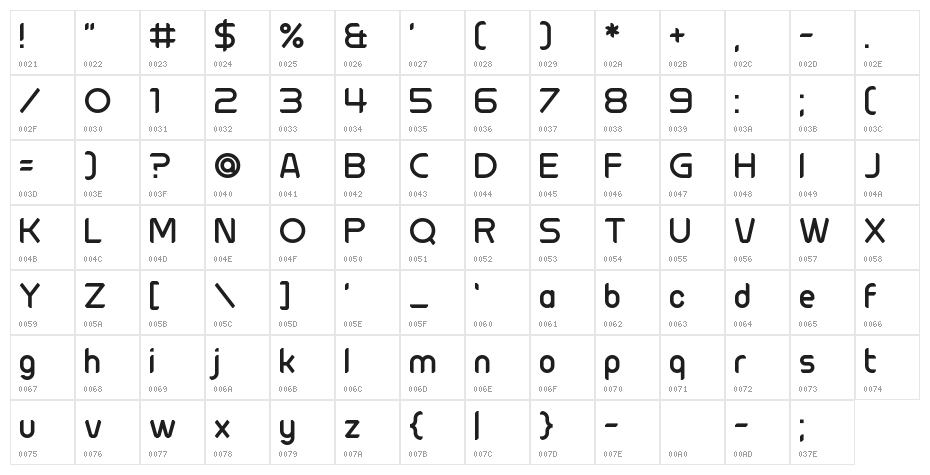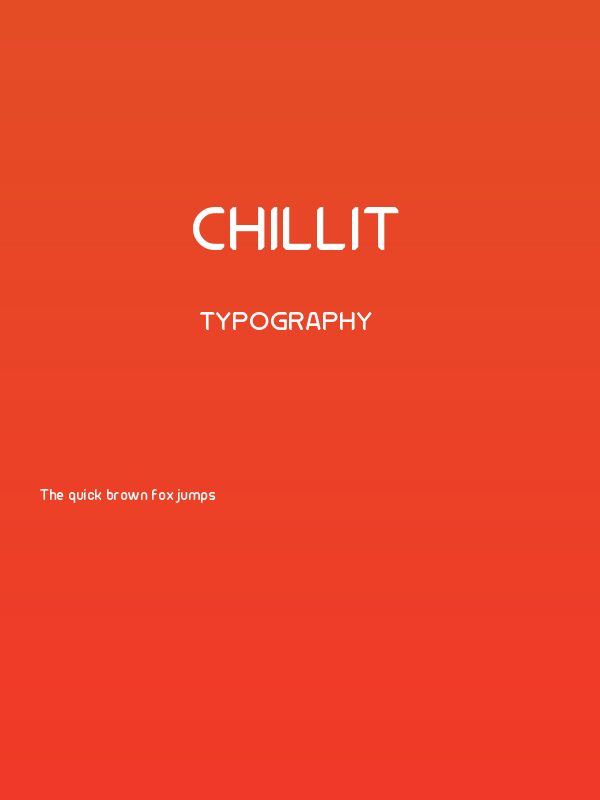
Chillit Font
Chillit Description
This font exhibits a modern and clean design with rounded edges, giving it a friendly and approachable appearance. The characters are evenly spaced, contributing to its readability. The uppercase letters maintain a consistent height, while the lowercase letters have a slightly playful curvature, particularly noticeable in letters like 'a', 'e', and 'g'. The numerals are clear and distinct, matching the overall style of the alphabetic characters. Special characters are well-integrated, maintaining the font's cohesive look. This font is versatile, suitable for both digital and print media, and can be used effectively in various design contexts.